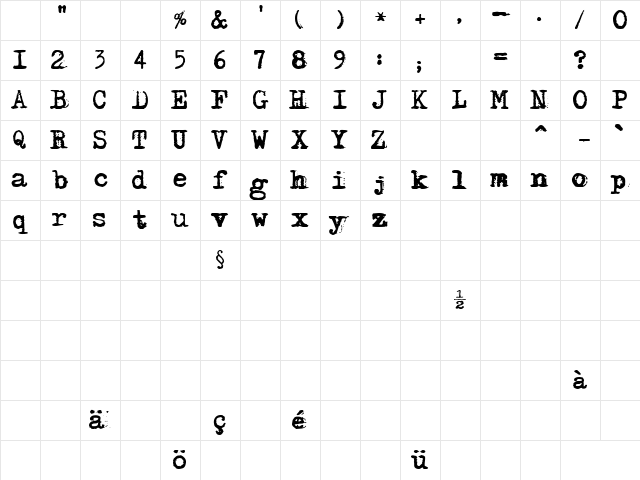
Adler Regular
Design Context for Adler
Adler is a composed and adaptable typeface that performs quietly and consistently across a wide range of design contexts.